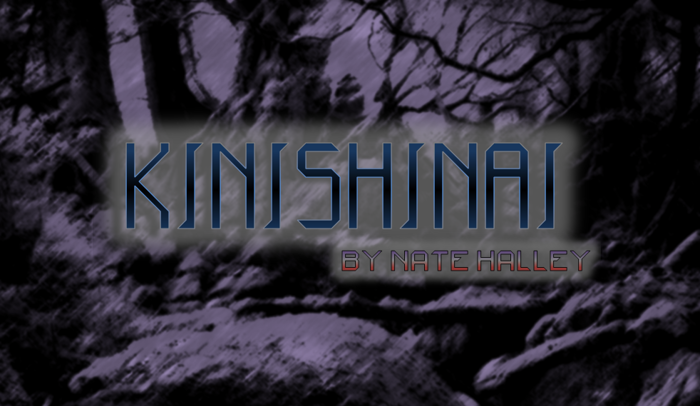
Kinishinai NBP Font
A small-caps typeface specifically designed for CG art. Sharp strokes inspired by Japanese katana (samurai swords)
Changed in V.1.1:
-Added katakana (finally!)
FYI Version 1.1 will have Katakana and some accented characters. It should be done soon.